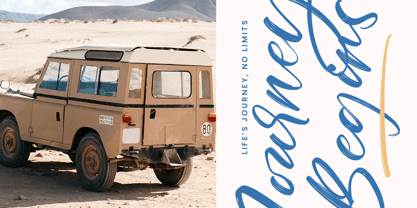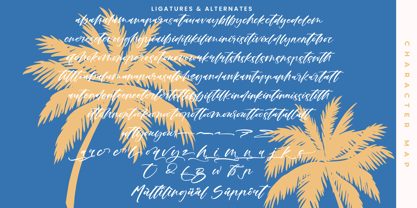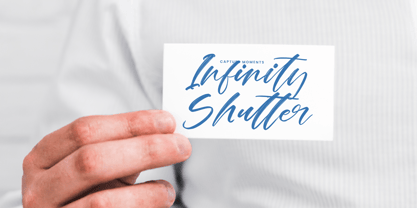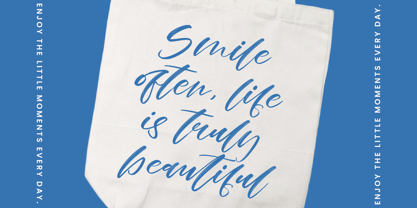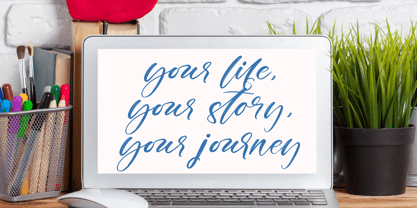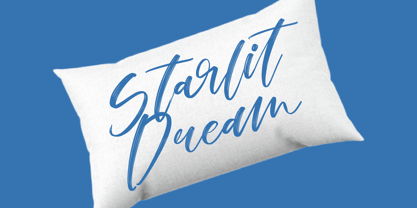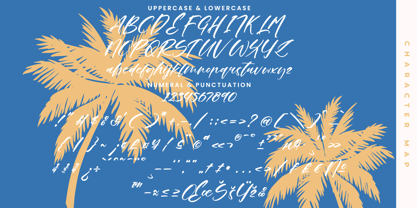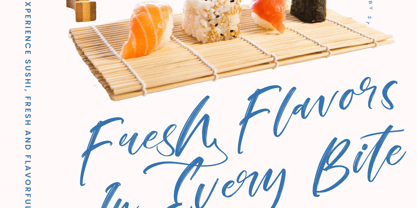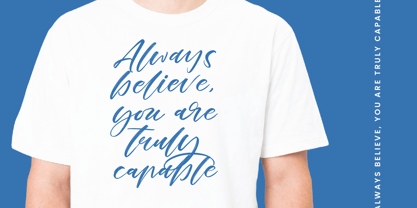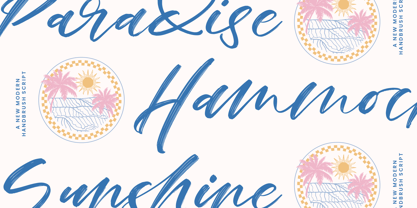
Ankara Stream
Die Schriftfamilie Ankara Stream wurde von Heru Utama Putra entworfen und von Stylishtype Studio veröffentlicht. Ankara Stream enthält 2 Stile und Familienpaketoptionen.
Ankara Stream - Modern Handbrush Script , from Stylishtype, Suitable for any projects such as: logos, branding projects, homeware designs, product packaging, mugs, quotes, posters, shopping bags, t-shirts, book covers, name card, invitation cards, greeting cards, label, photography, watermark, special events, and all your other luxury and beautiful projects that need a Luxury Script taste.